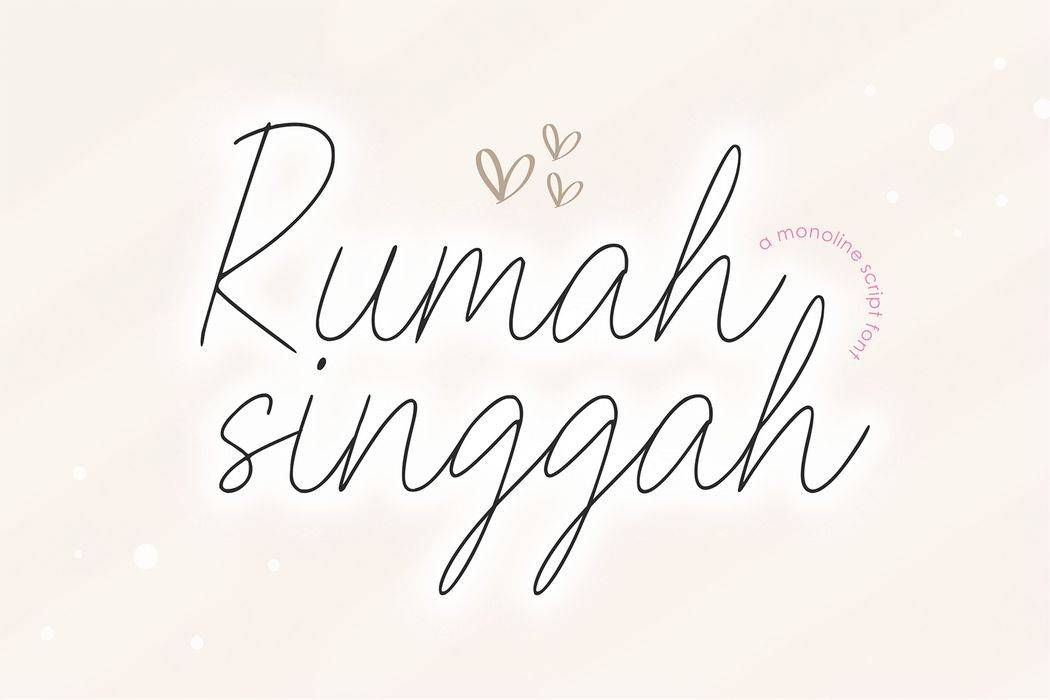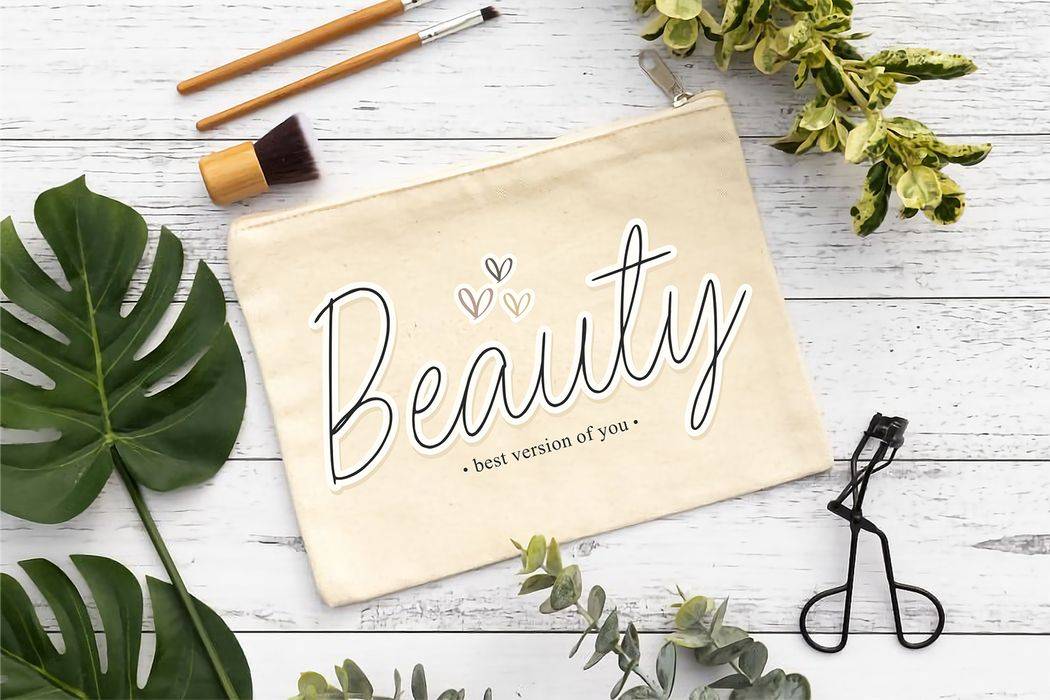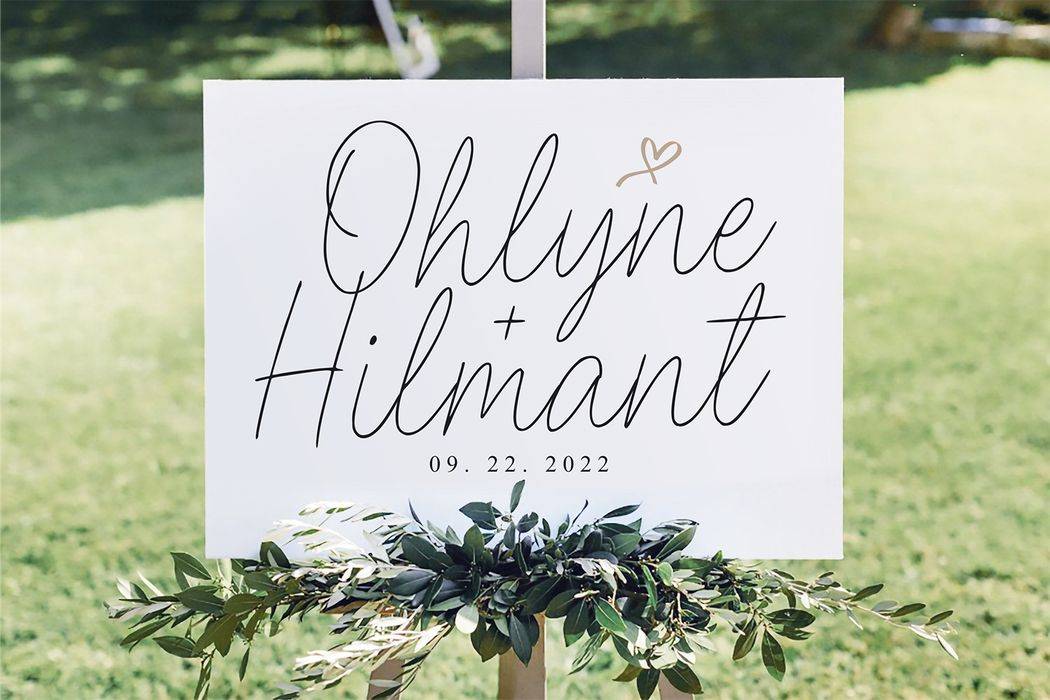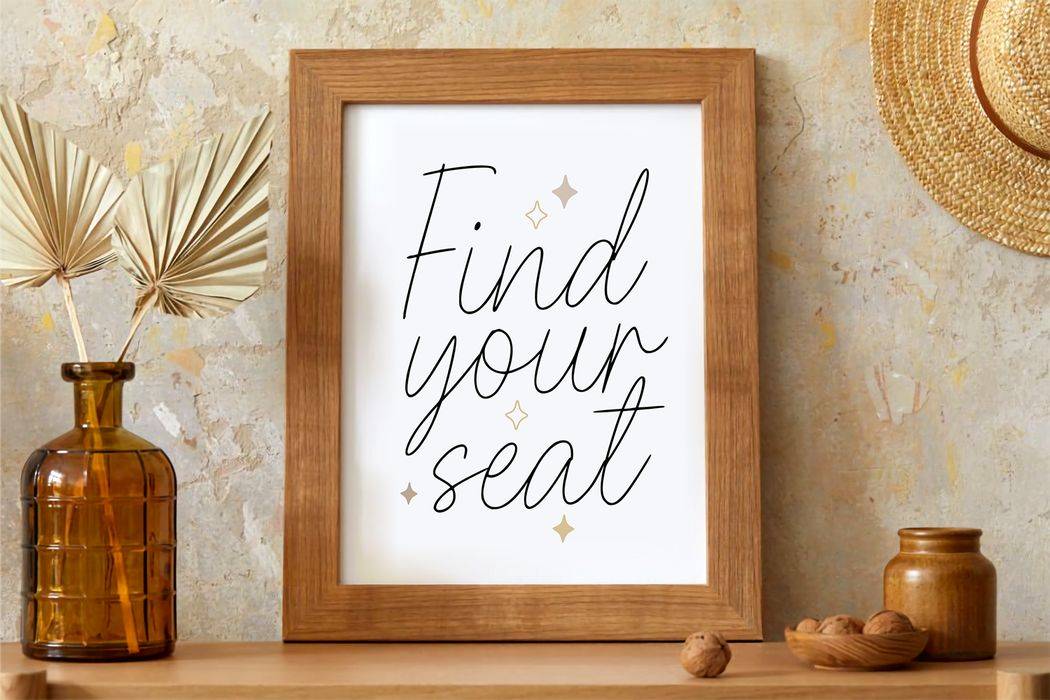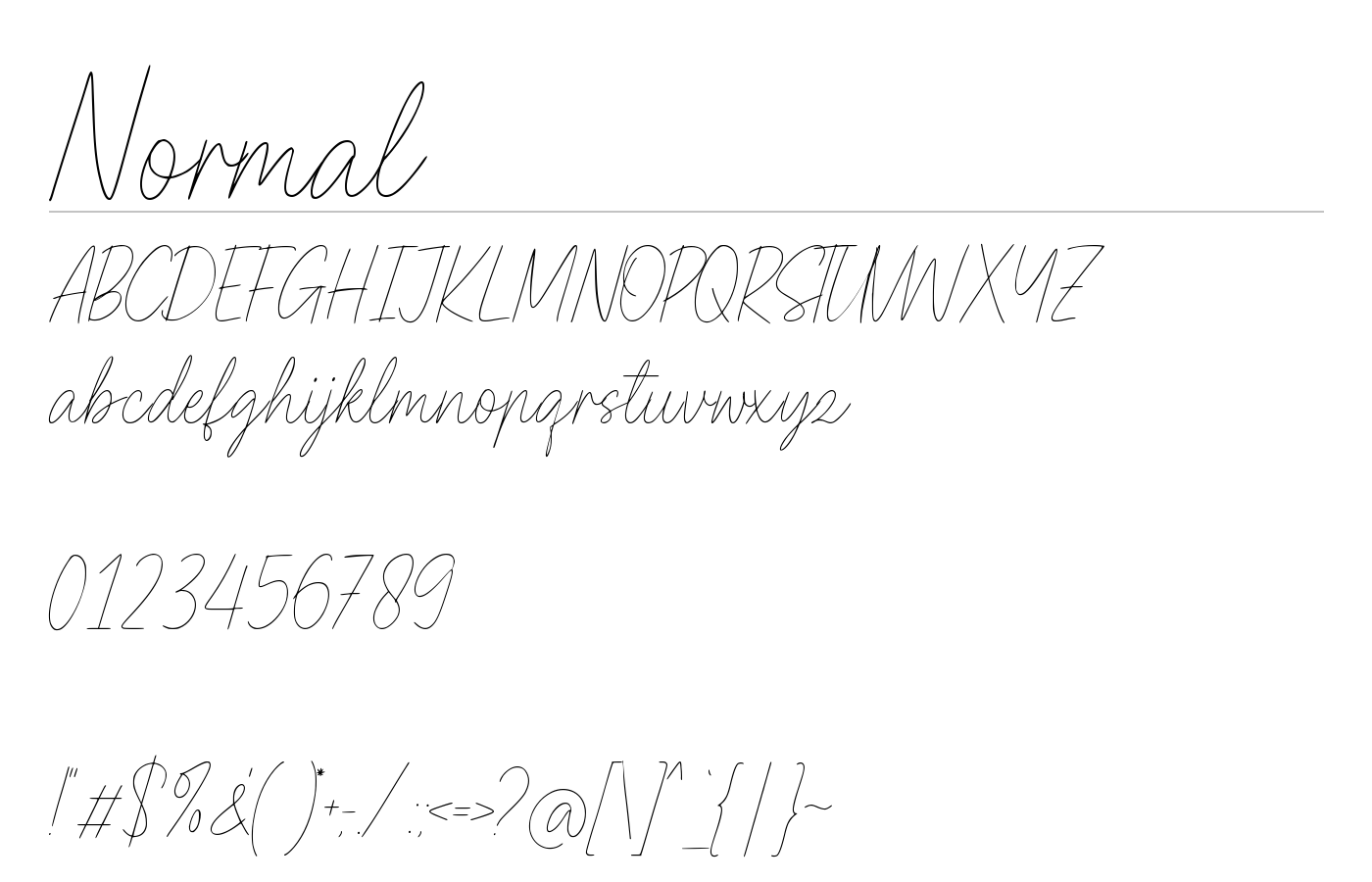
Rumah Singgah is a delicate, handwritten script font characterized by its thin, flowing strokes and elegant, cursive letterforms. Its light weight and high, narrow x-height give it a graceful, airy feel that works perfectly for personal, artistic, or feminine designs. Ideal for invitations, branding, or editorial accents, this font adds a touch of subtle sophistication and warmth.
Rumah Singgah Font
About Rumah Singgah Font